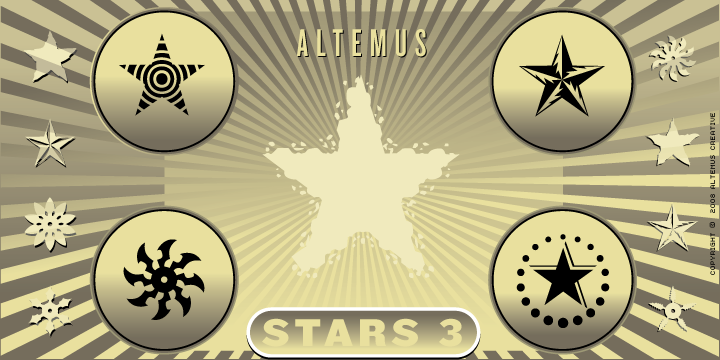
This font contains 174 characters; a variety of throwing star designs with from three to ten points, a variety of dimensional stars, rough flag stars, pokerchip stars, circus stars and exploding stars.
Altemus Stars Three